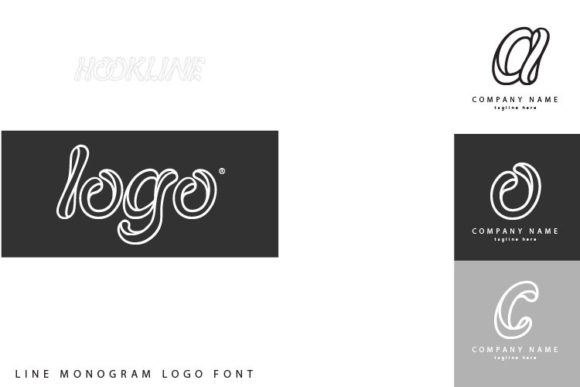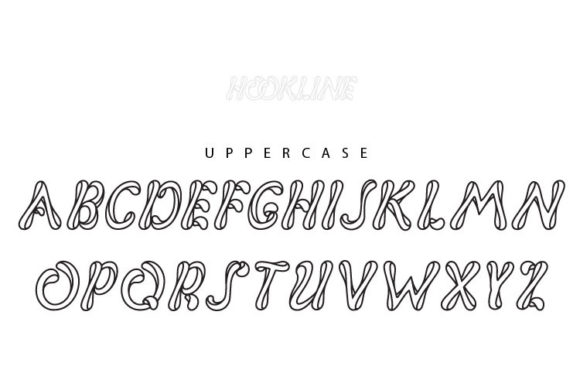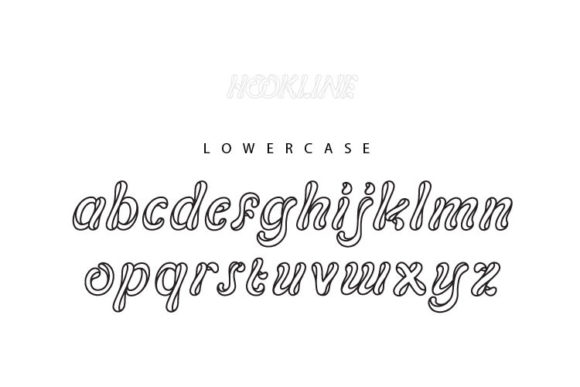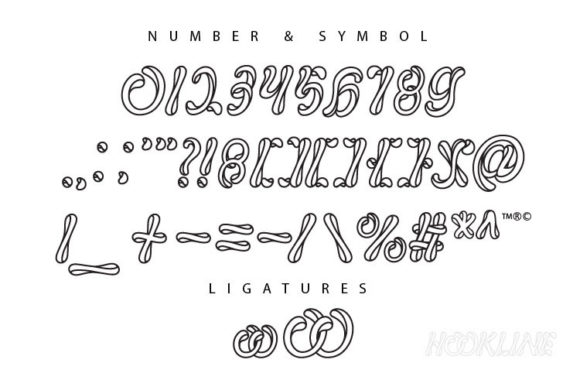
Introduction to Hookline Font
You’re scrolling through your favorite design inspiration feed, and suddenly, you stumble upon a stunning logo that catches your eye. The bold typography and quirky flair transport you to a world of creativity and possibility. That’s the moment when you realize the power of a well-designed font in elevating your visual storytelling. Today, we’re excited to introduce you to the Hookline Font – a high-quality display font that’s about to become your new go-to design resource.
Whether you’re a seasoned designer or a creative enthusiast, the Hookline Font offers endless possibilities for your next project. Its transparent background and sleek design make it perfect for a variety of applications, from logos and branding to invitations and social media posts. With its free download available, you can start experimenting with this fantastic font and unleash your creativity like never before.
Key Features of Hookline Font
- High-quality design resource with a unique, bold aesthetic, perfect for creative projects.
- Features a transparent background, making it easy to use in various design applications.
- Available in 4 font styles: Regular, Bold, Italic, and Bold Italic, to cater to different design needs.
Honest Review: Hookline Font
I recently stumbled upon the Hookline Font, and I must say it’s been a game-changer for my design projects. The high quality of this font has impressed me, and I’m excited to share my thoughts with you.
- ✨ The transparent background makes it perfect for overlaying text on images or videos.
- ✨ The wide range of weights and styles gives me endless options for creative projects.
- ✨ The font is highly customizable, allowing me to fine-tune the look and feel to suit my needs.
- ⚠️ The font might not be suitable for small text sizes, as it can become difficult to read.
- ⚠️ Some users may find the font a bit too playful, which may not be suitable for all design projects.
Overall, I’m thoroughly impressed with the Hookline Font. Its high quality, versatility, and customization options make it a valuable addition to any designer’s toolkit. Whether you’re working on a creative project or just need a reliable font for your design resource, the Hookline Font is definitely worth checking out.
Hookline Font is ideal for creative projects such as branding, advertising, and editorial design. Its unique features make it perfect for headlines, titles, and captions.
Alternatives to Hookline Font
Great Vibes Font is a high-quality, cursive script font ideal for creative projects requiring a touch of elegance. It features a transparent background, making it suitable for use on various design resources. Great Vibes Font is available for free download and can be used for both personal and commercial purposes. When to use: wedding invitations, greeting cards, and other romantic designs.
Comparison to Hookline Font: While both fonts have a similar feel, Great Vibes Font is more elegant and sophisticated, making it a better choice for high-end design projects.
Alex Brush Font is a beautiful, handwritten script font perfect for adding a personal touch to your design projects. It features a transparent background and is available for free download. When to use: invitations, menus, and other designs where a personal, handwritten feel is desired.
Yes, the Hookline Font has a transparent background, making it ideal for use in applications where a clear background is required. This can be particularly useful in graphic design, web design, and other creative projects where a high level of design flexibility is needed.